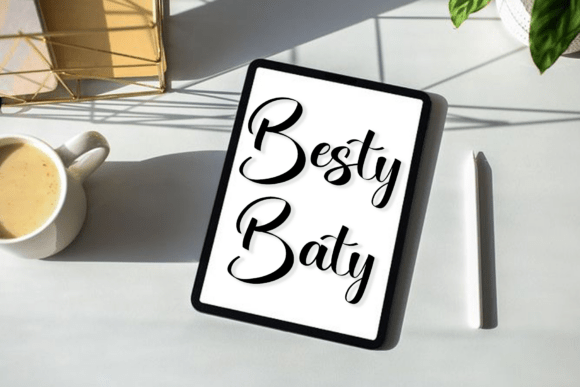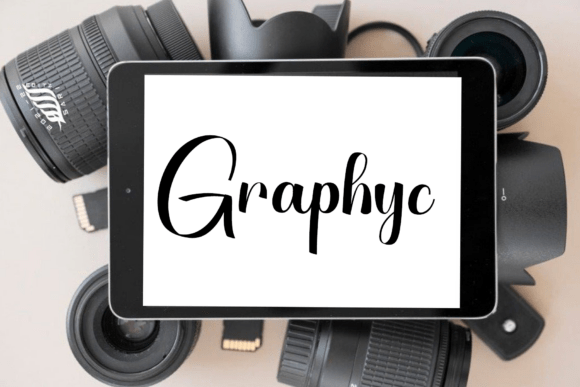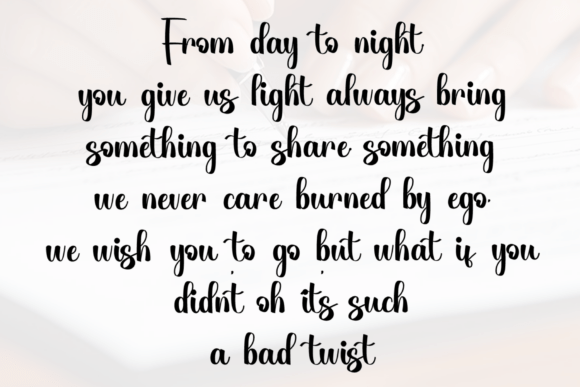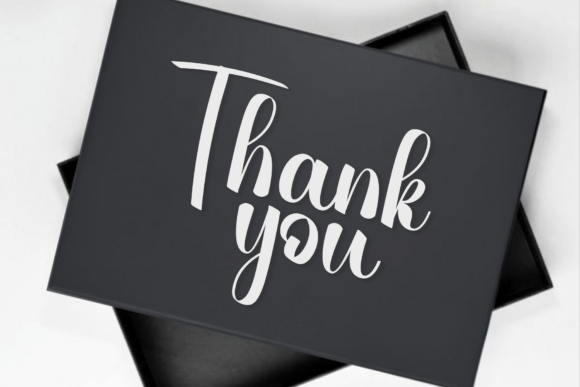
The Quest for the Perfect Font: Discovering Datingdate
I’ll never forget the design project that led me to Datingdate. I was working on a branding campaign for a new coffee shop, and I was determined to create a logo that would stand out. But, as I scrolled through font after font, I just couldn’t find the right fit. That was until I stumbled upon Datingdate – a lovely and timeless handwritten font that immediately caught my eye.
As I explored Datingdate further, I realized that it’s more than just a font – it’s a design solution. With its unique and beautiful touch, it’s perfect for creating eye-catching logos, branding, and quotes. In this article, I’ll share my experience with Datingdate, including what I love about it, its limitations, and how to get the most out of it on different platforms.
An Honest Review of Datingdate
- ✨ Unique and beautiful handwriting style
- 💫 Supports OpenType features, glyphs, and stylistic alternates
- 🎨 Perfect for creating eye-catching logos, branding, and quotes
While Datingdate is an amazing font, it’s not perfect. Here are a few things to keep in mind:
- 🤔 Some letters may appear a bit condensed, which can affect readability in certain contexts
- ⚠️ Limited availability of Cyrillic and non-English characters
The Story Behind Datingdate
Datingdate was designed with love and care by a talented type designer who wanted to create a font that would bring a touch of elegance and sophistication to any design. Inspired by classic handwriting styles, Datingdate is the result of hours of meticulous work and attention to detail.
Q: What is the best way to use Datingdate for branding?
A: Datingdate is perfect for creating eye-catching logos, business cards, and letterheads. Use it consistently across all your branding materials to create a cohesive look.
Q: Is Datingdate suitable for body text?
A: While Datingdate is highly legible, it’s best suited for headings and titles. For body text, consider using a more traditional font.